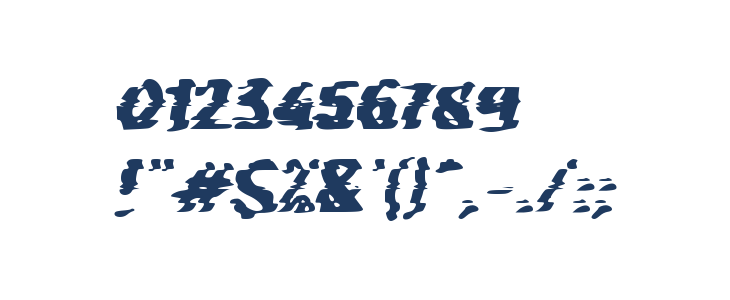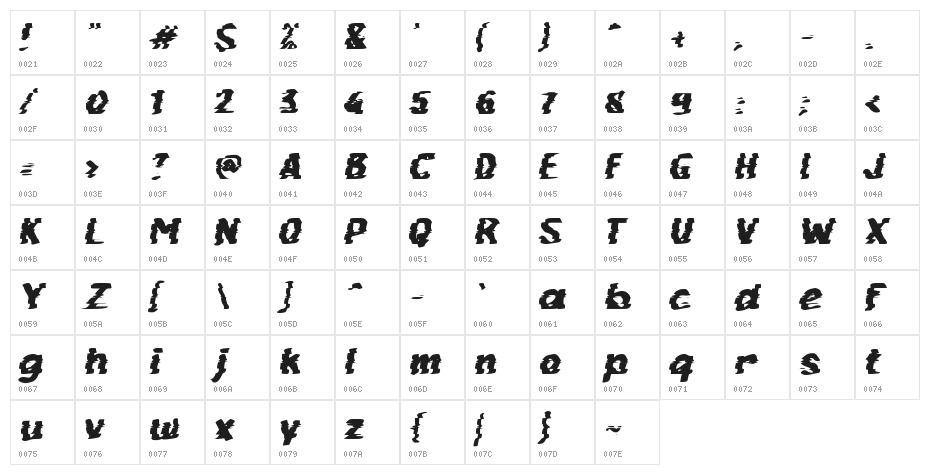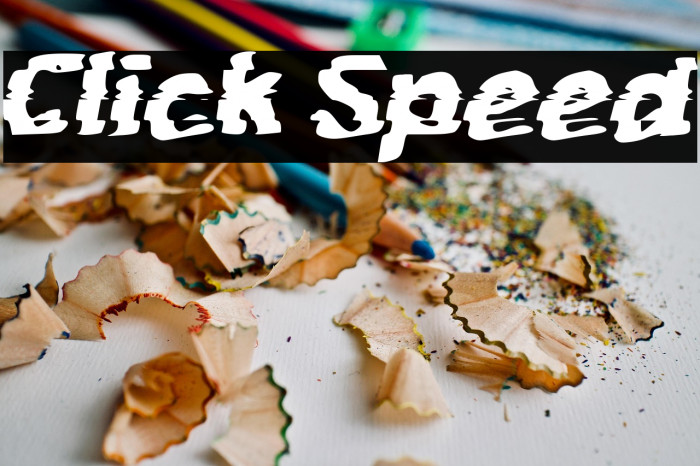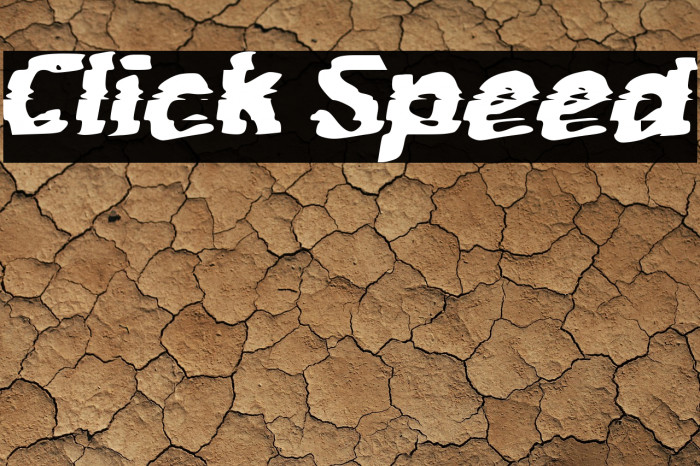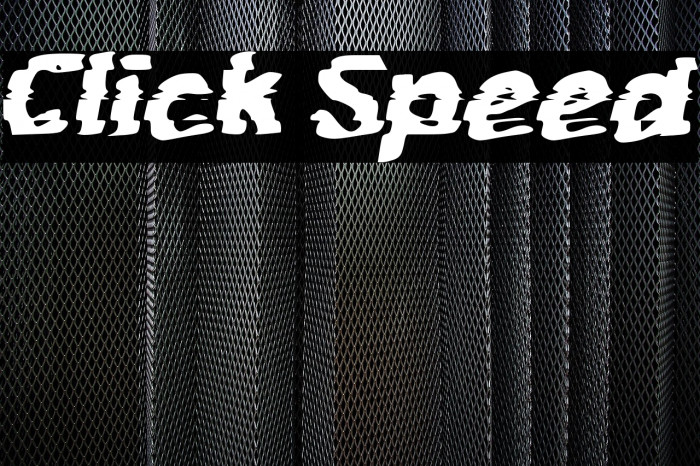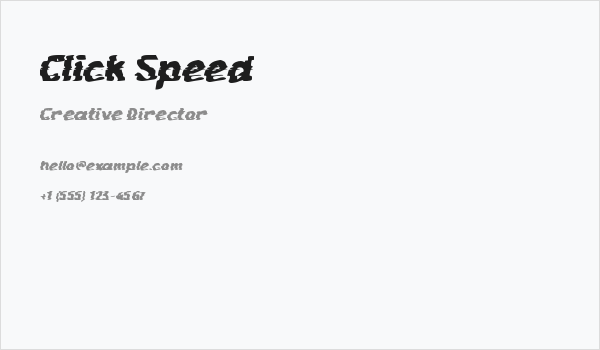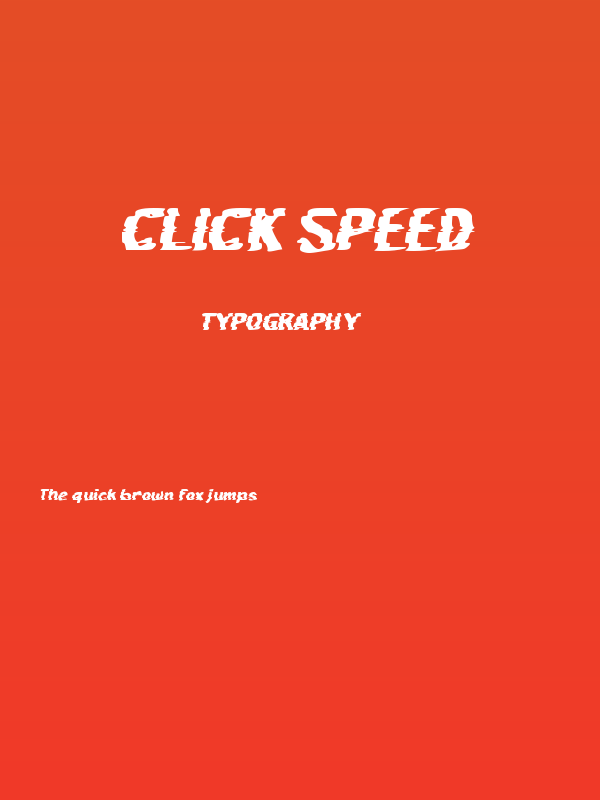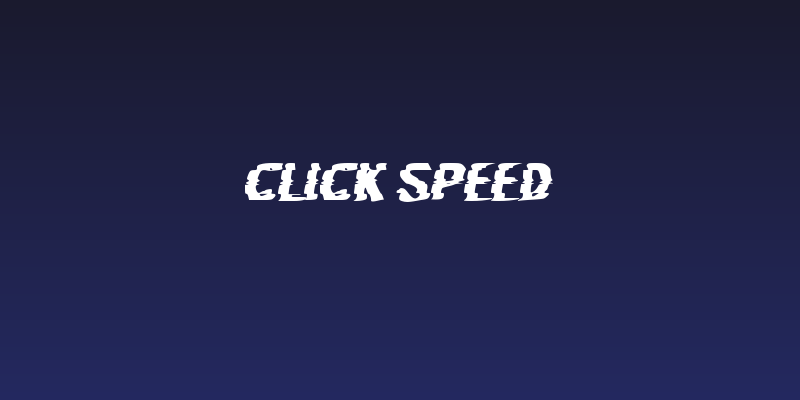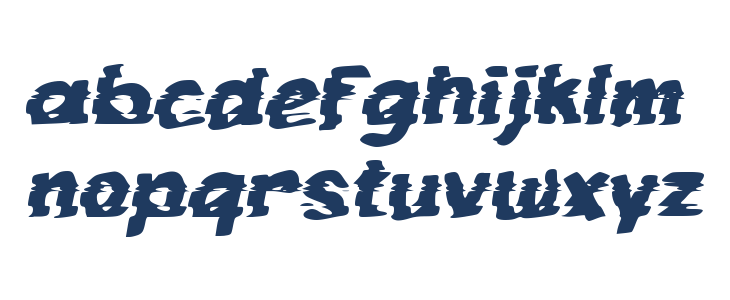
Click Speed Font
Click Speed Description
This font features a dynamic and energetic style, characterized by its bold and jagged edges that create a sense of movement and speed. The letters are heavily stylized with a distressed, almost glitch-like appearance, giving it a modern and edgy feel. The uppercase and lowercase letters maintain a consistent design, with sharp angles and irregular shapes that add to its unique aesthetic. The numbers and special characters follow the same design principles, ensuring a cohesive look across all glyphs. This font is perfect for projects that require a bold statement and a sense of urgency or action.
| Proposed Projects | Ideal for sports branding, action movie posters, video game titles, and dynamic advertising campaigns. |